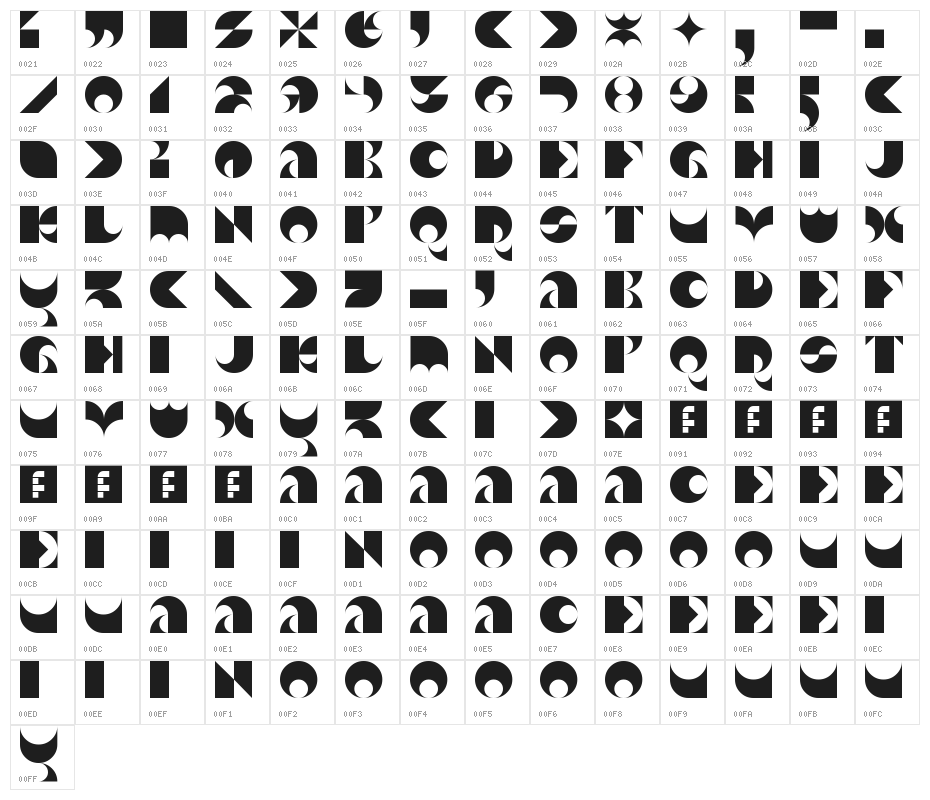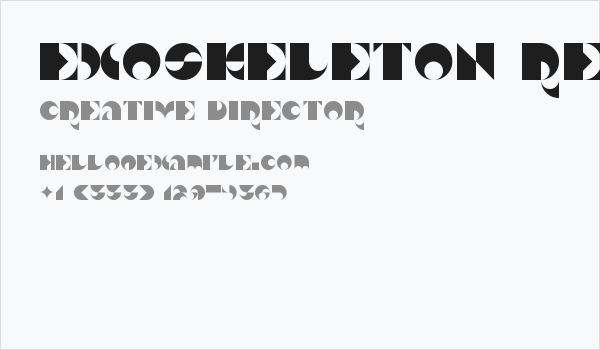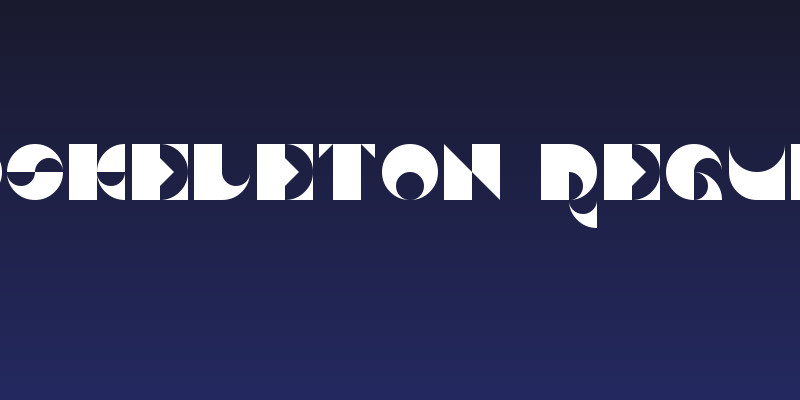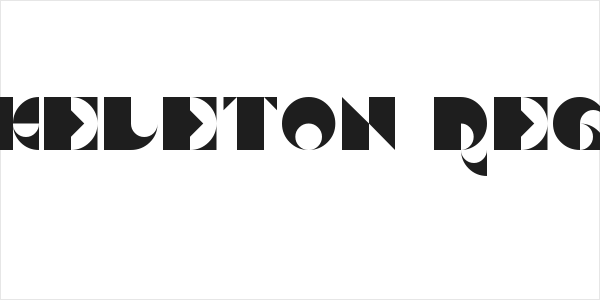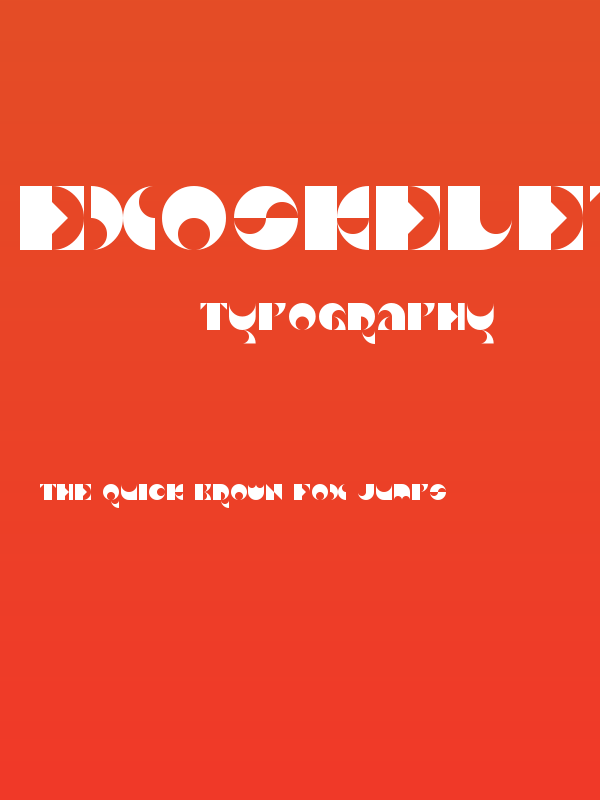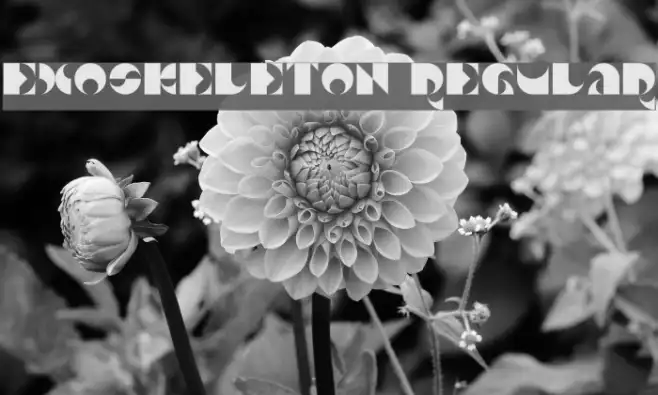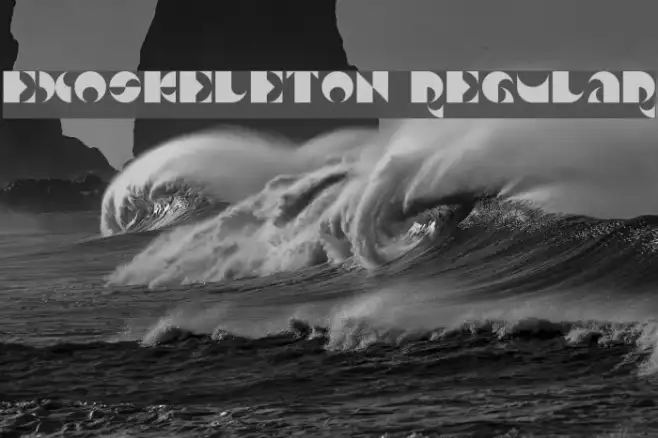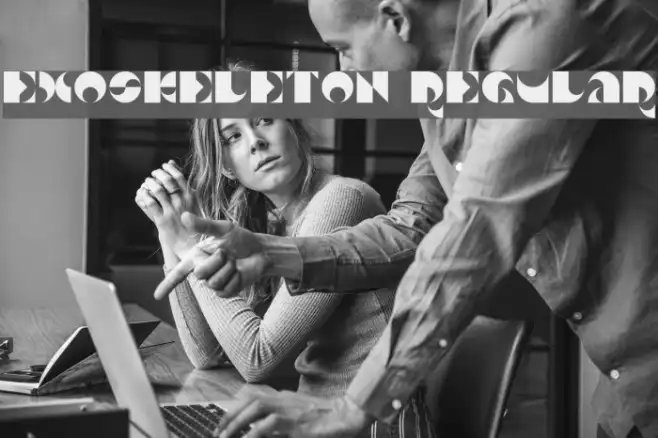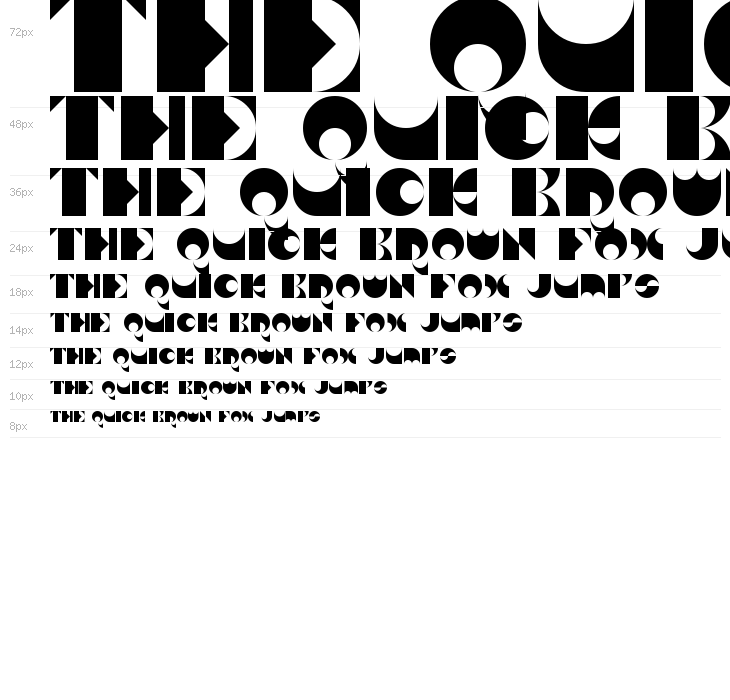
Exoskeleton Regular Font
Exoskeleton Regular Description
This font features a bold and striking design with a futuristic and geometric aesthetic. The characters are composed of thick, solid shapes with sharp angles and curves, creating a sense of movement and dynamism. The use of negative space is prominent, with cutouts and circular forms adding to its unique appearance. Each letter and number is distinct, yet they all share a cohesive style that is both modern and artistic. The special characters are equally stylized, maintaining the overall theme of the font. This font is ideal for projects that require a bold statement and a contemporary look.
| Proposed Projects | Ideal for branding, posters, album covers, and any project needing a modern, eye-catching typeface. |